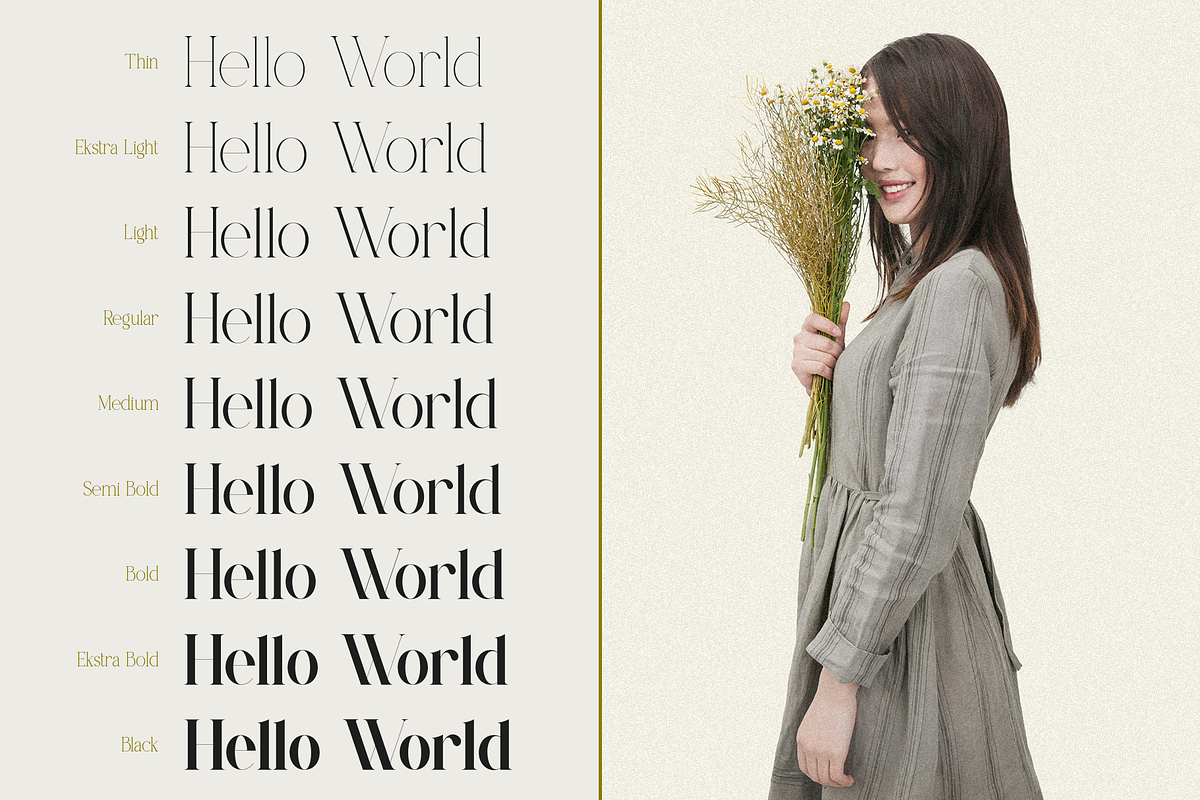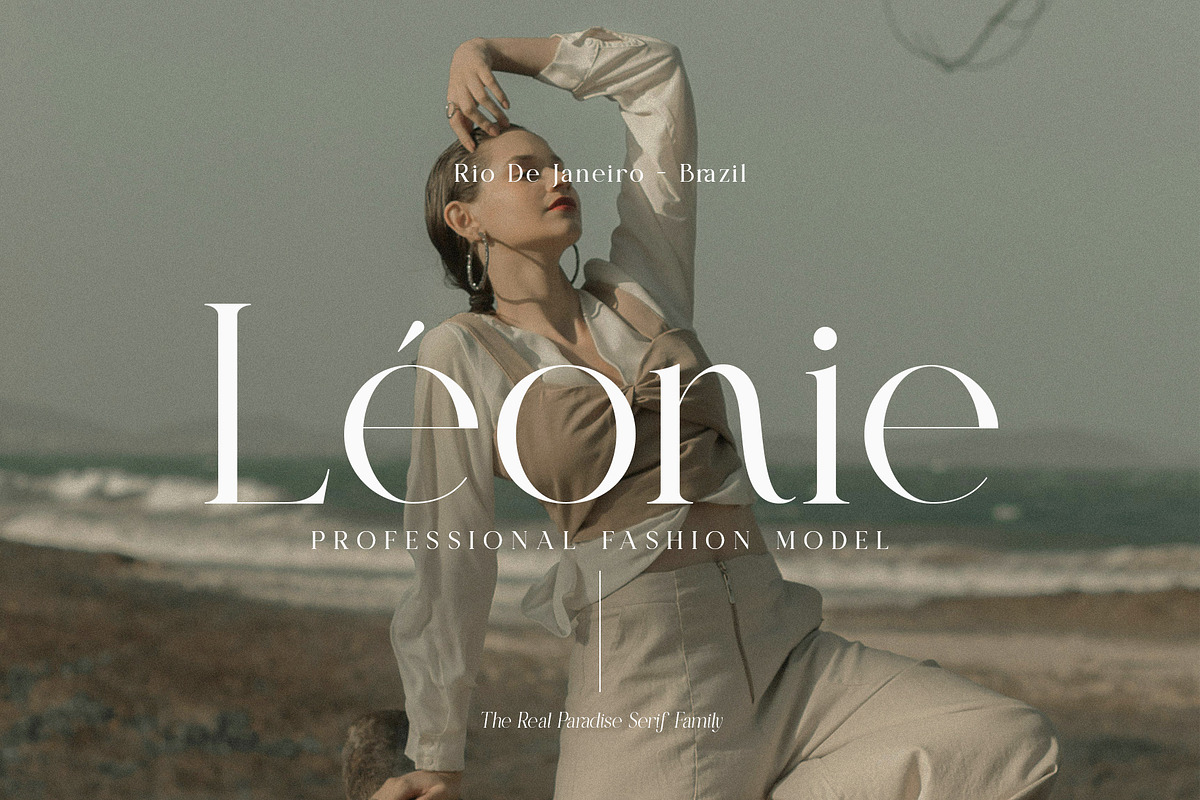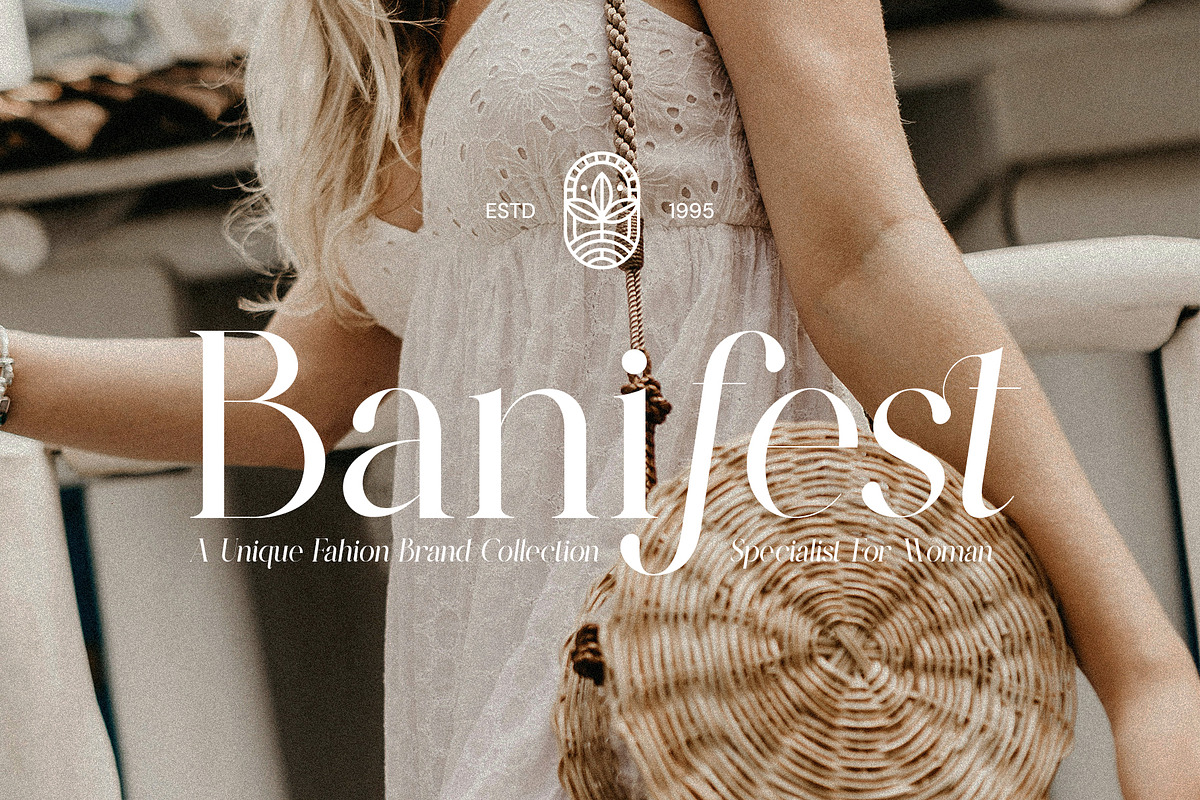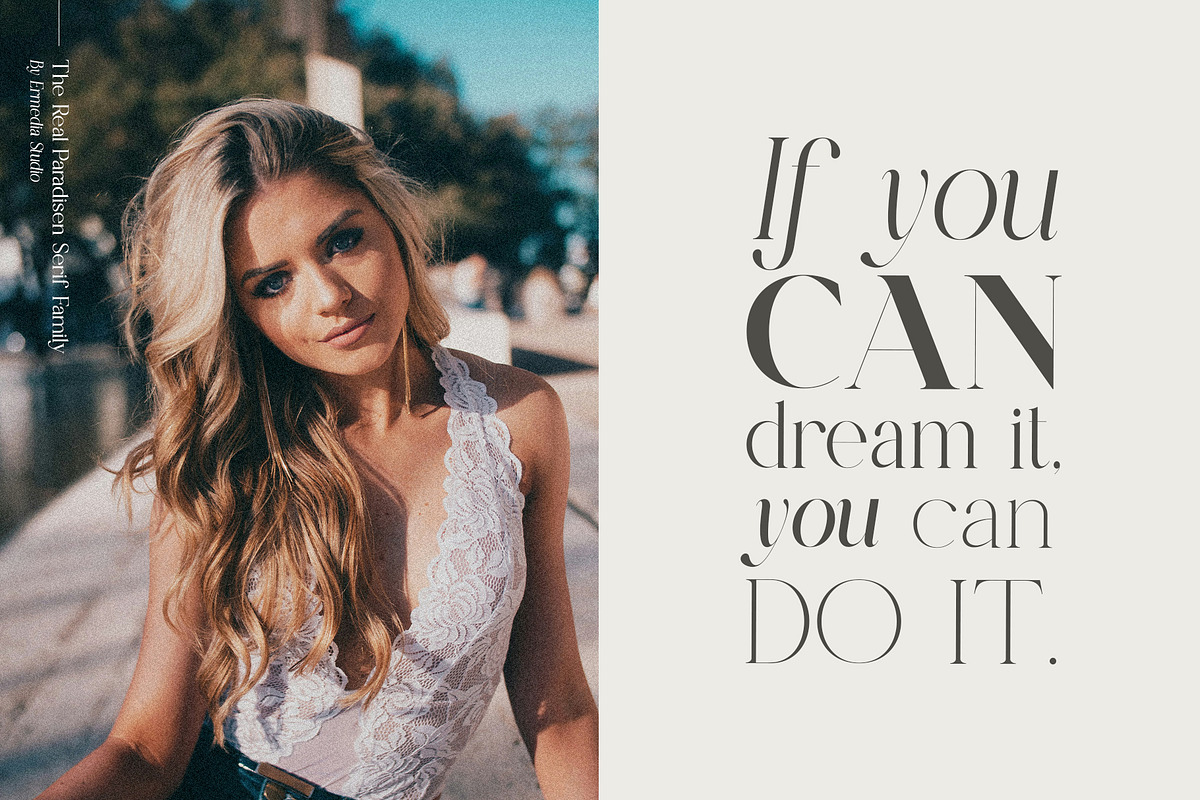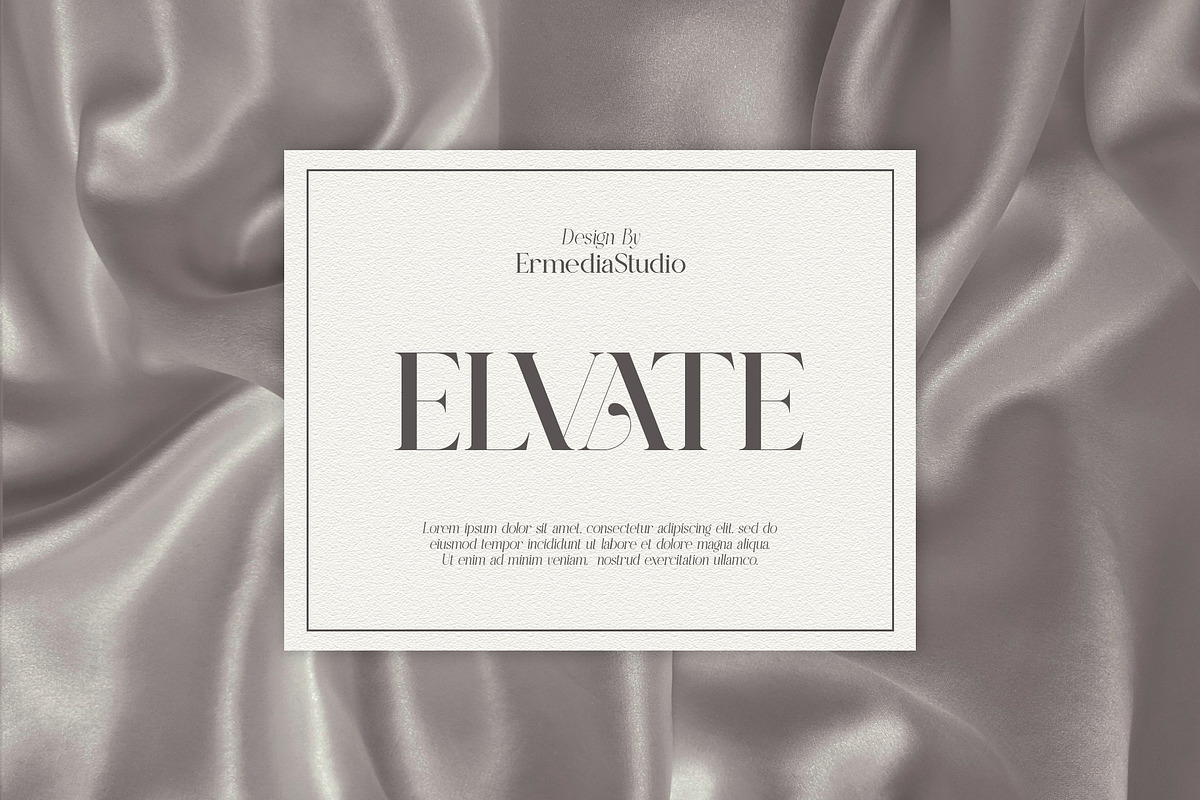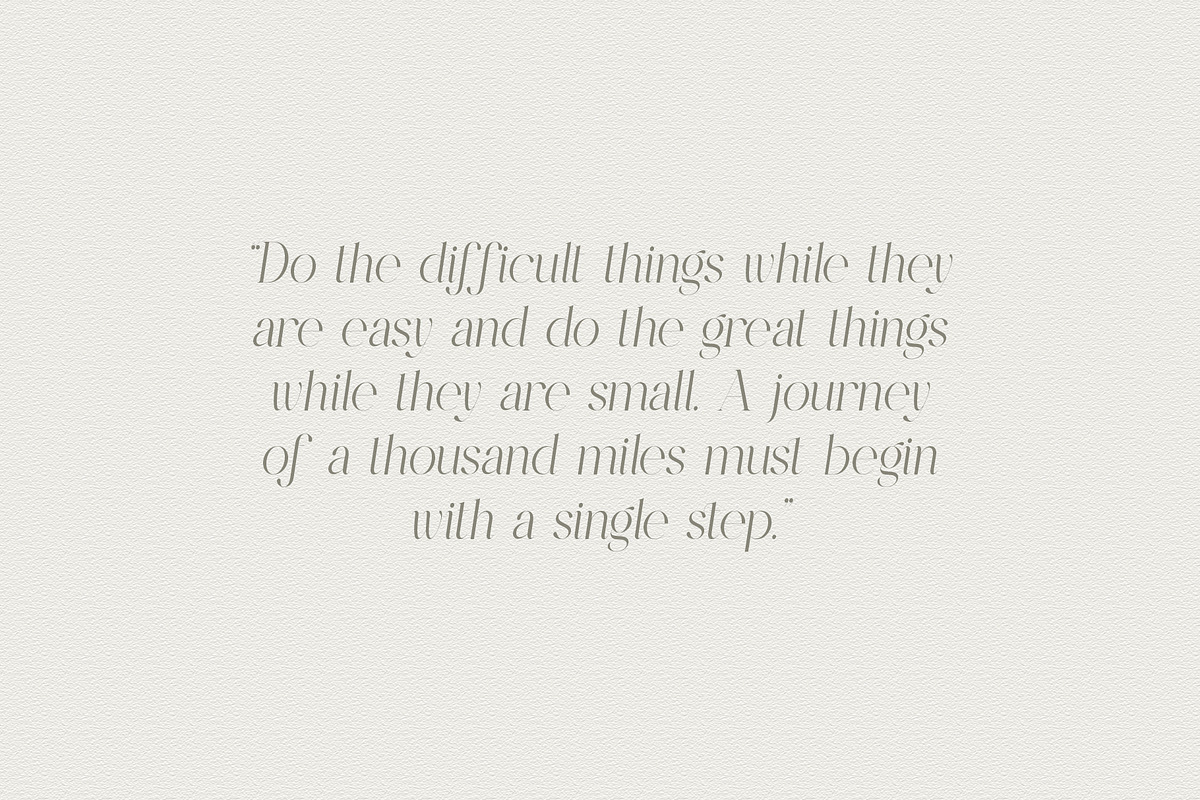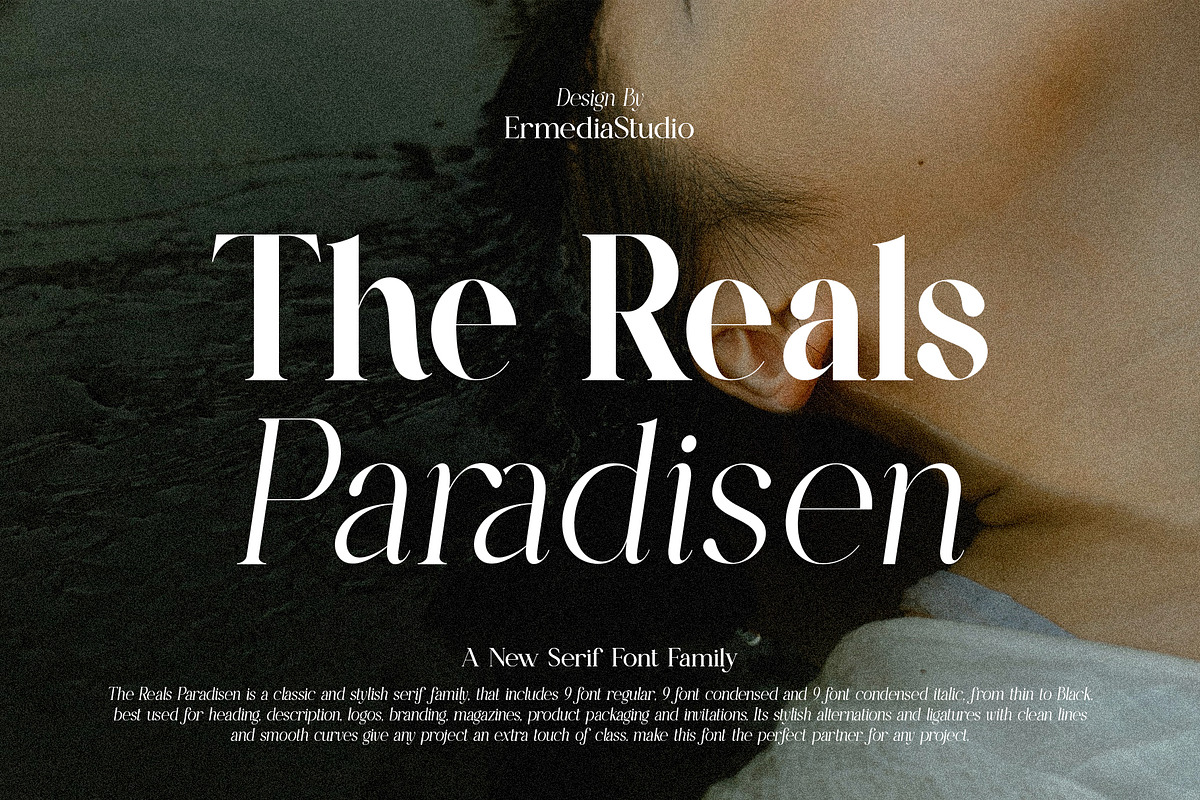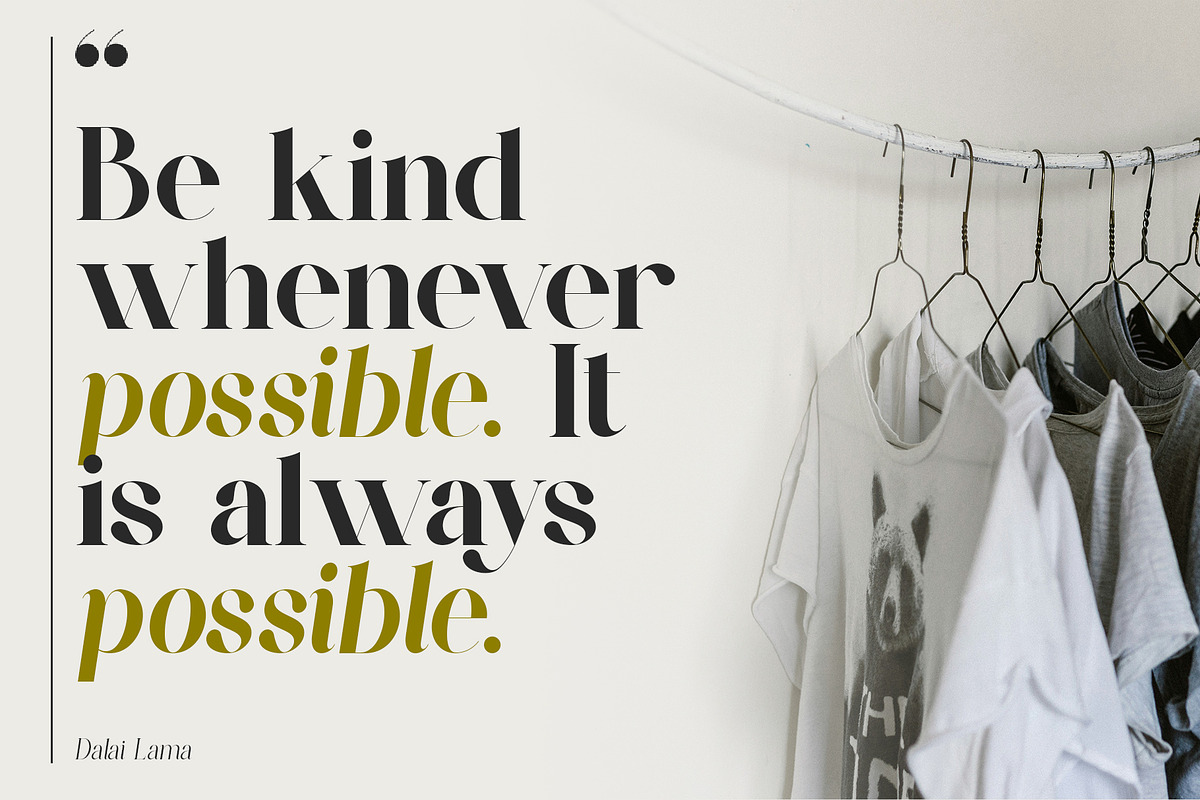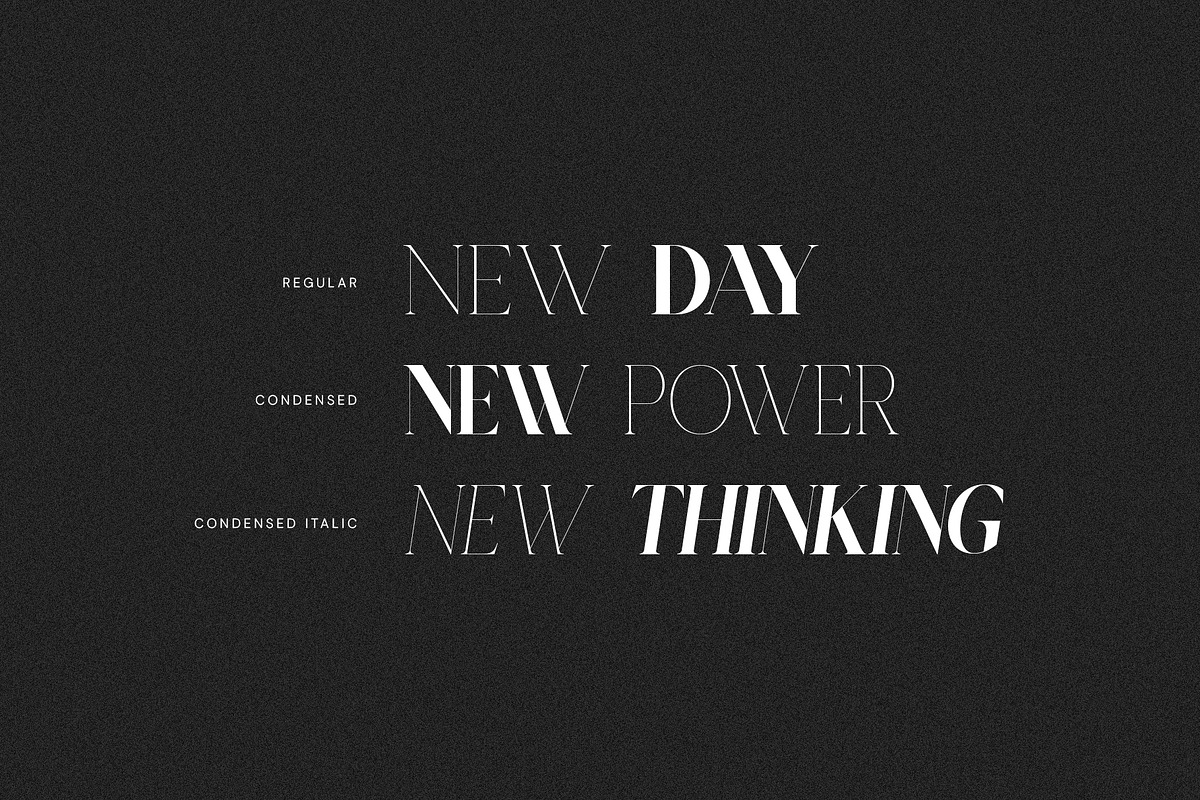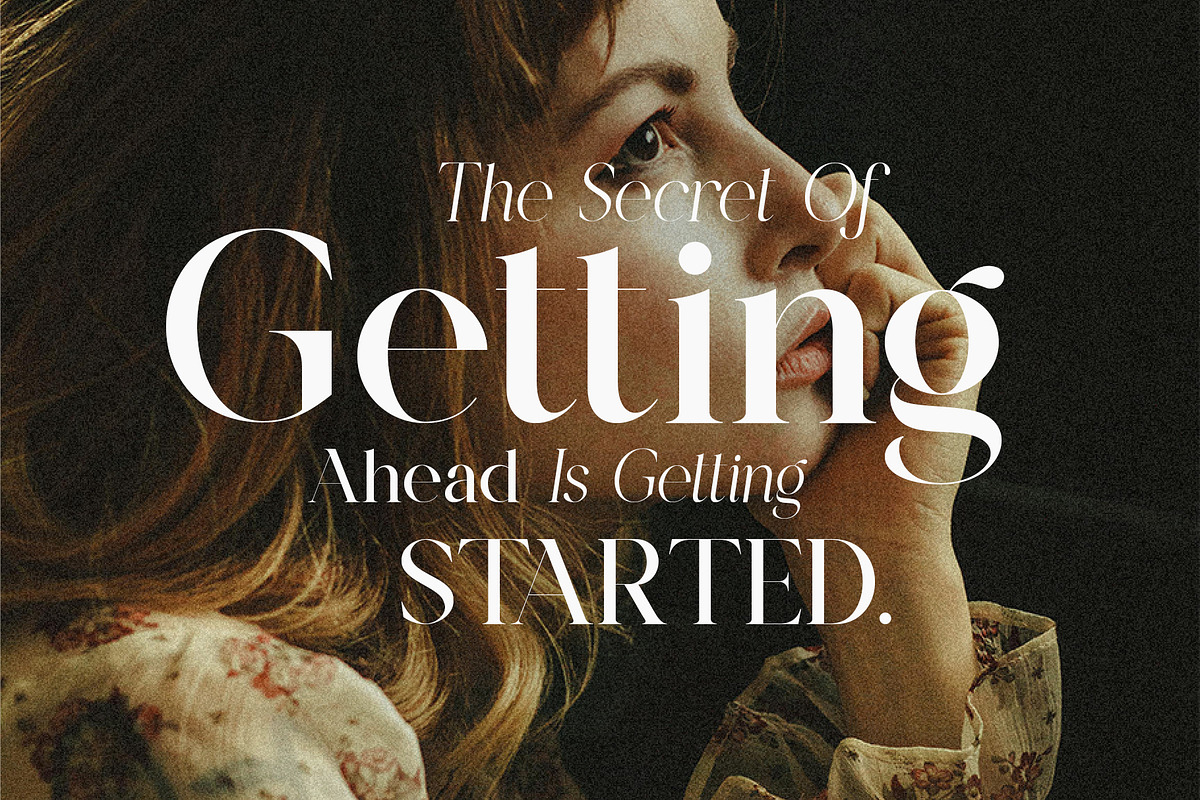
The Reals Paradisen - Serif Family
The Reals Paradisen is a classic and stylish serif family, which includes 9 regular fonts, 9 bold fonts, and 9 bold italic fonts, from thin to extra bold, best used for titles, descriptions, logos, branding, magazines, product packaging, and invitation. Its stylish alternations and bindings with clean lines and smooth curves add an extra touch of class to any project. make this font the perfect partner for any project.